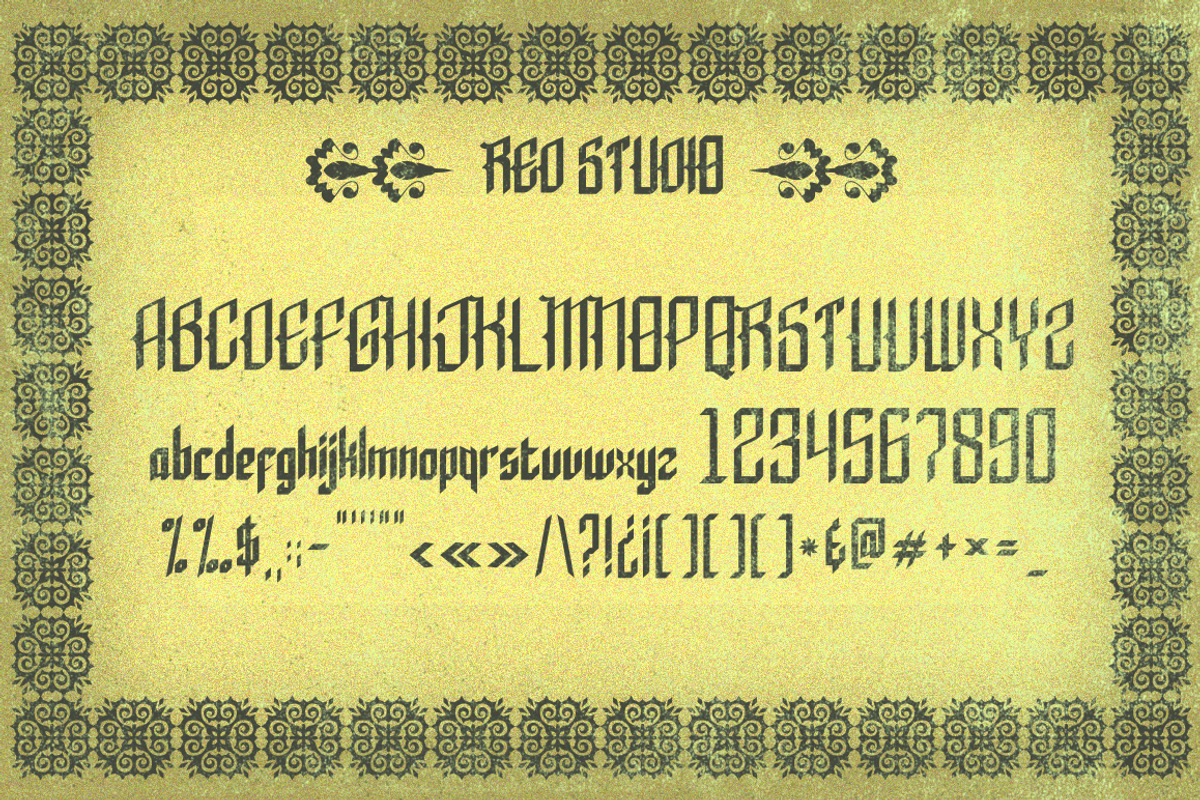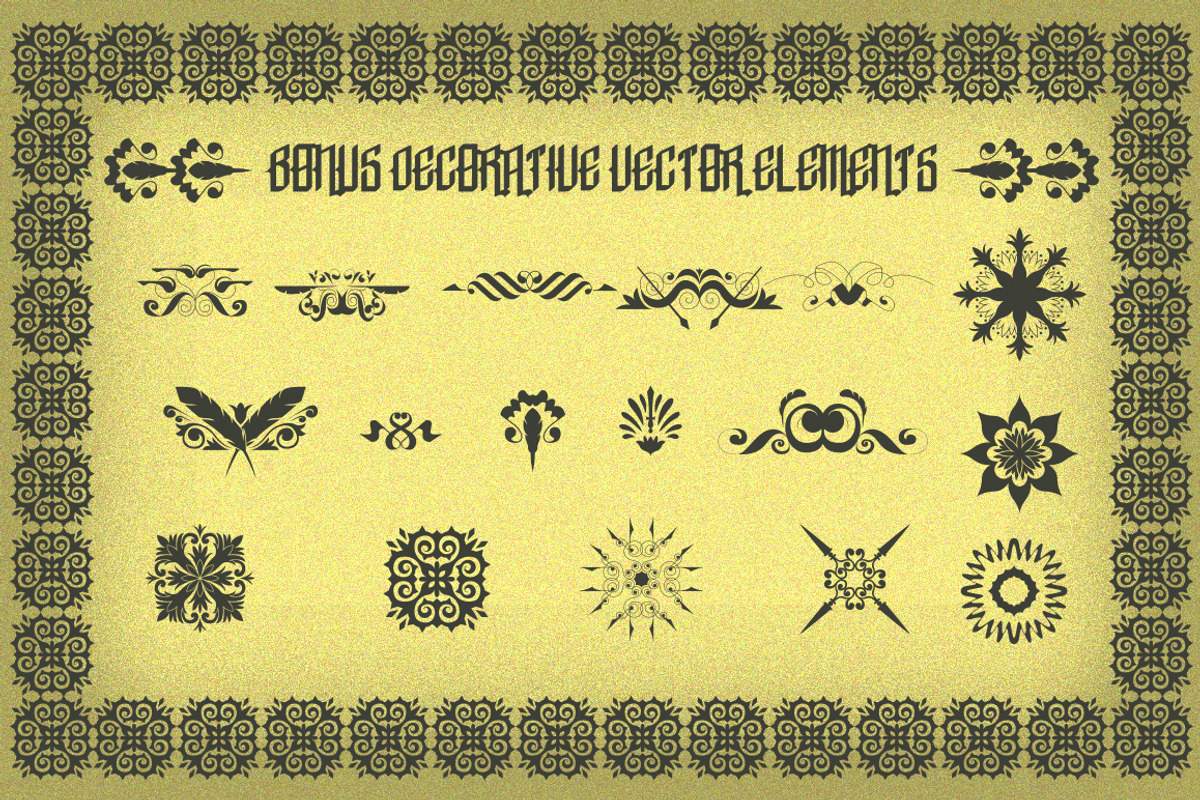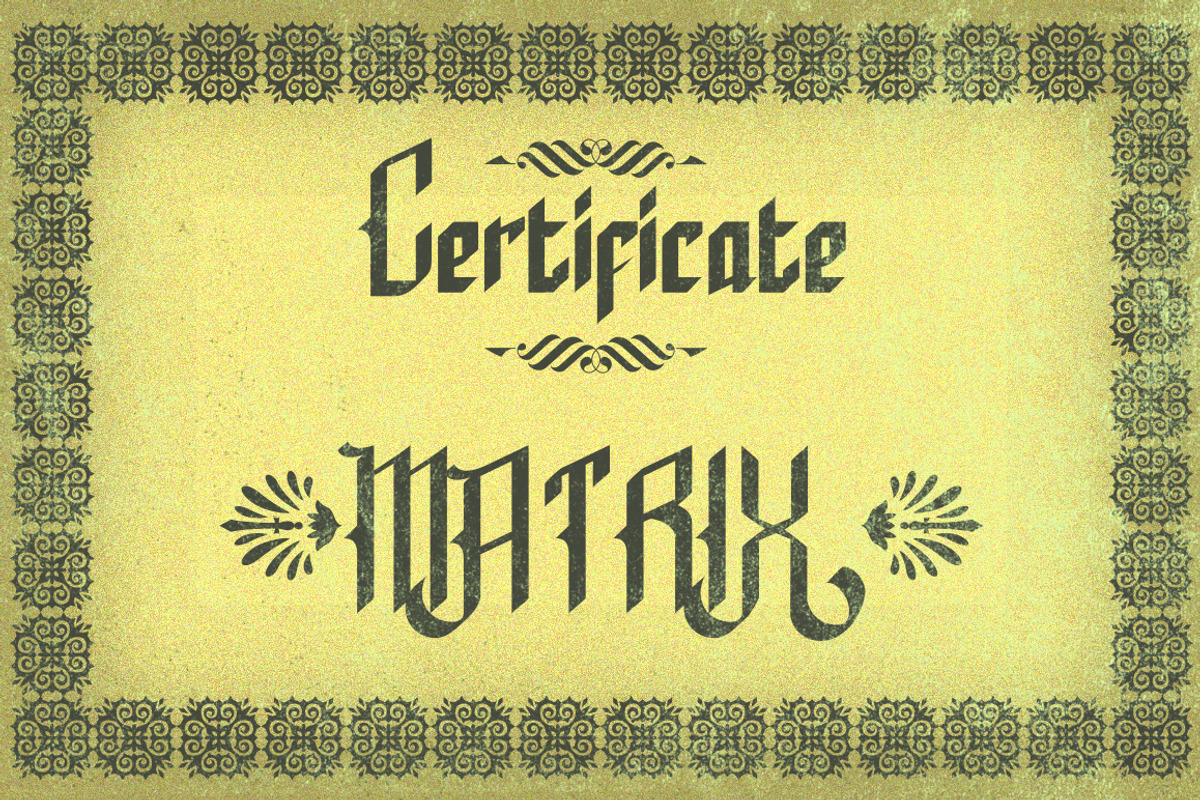
Sale ! 50% Abraham Typeface + Bonus by fopifopi is a font selected for branding, posters, packaging, typography.
- Bonus : Decorative Vector Pack Some Alternates Show More
Sale ! 50% Abraham Typeface + Bonus by fopifopi fits naturally into Branding, posters, packaging, typography.